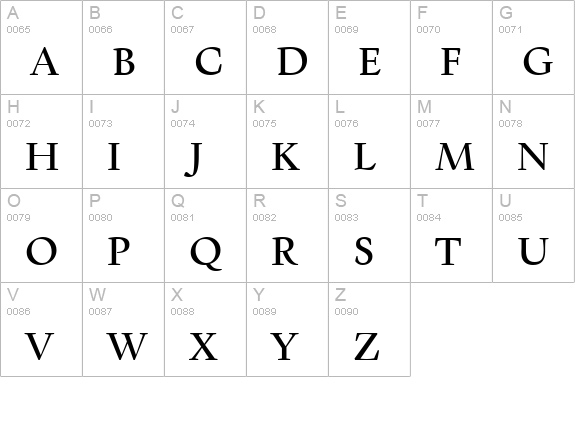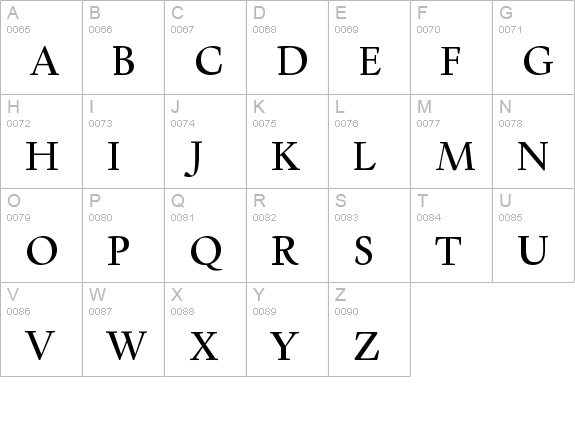
Kennedy Medium GD is a balanced, medium-weight variant in the Kennedy typeface family \xE2\x80\x94 well suited to sub-headlines, navigation, and balanced editorial work.
Kennedy Medium GD is a visually stunning font that exudes both elegance and familiarity. With its clean lines and balanced proportions, this font is perfect for both professional and creative projects. The medium weight of the font strikes a harmonious balance between boldness and subtlety, making it versatile and adaptable. One of the standout features of Kennedy Medium GD is its exceptional legibility, ensuring that your message is effortlessly conveyed to your audience. Whether it's a printed document, a website design, or a promotional material, this font will make your text stand out and capture attention. Another remarkable aspect of Kennedy Medium GD is that it is free. That's right, you can download this exceptional font without having to spend a dime. It is readily available for download at FontsMarket.com, a reliable source for high-quality fonts. By offering this font for free, the creators of Kennedy Medium GD have made it accessible to a wide range of users, allowing them to enhance their design projects without any financial barriers. Kennedy Medium GD is a font that truly elevates any project it is used in. Its timeless appeal and versatility make it suitable for various design purposes. From branding and advertising to invitations and social media graphics, this font effortlessly adds a touch of sophistication and professionalism. So, why settle for ordinary when you can enhance your designs with Kennedy Medium GD? Download this exceptional font for free at FontsMarket.com and let your creativity soar to new heights.